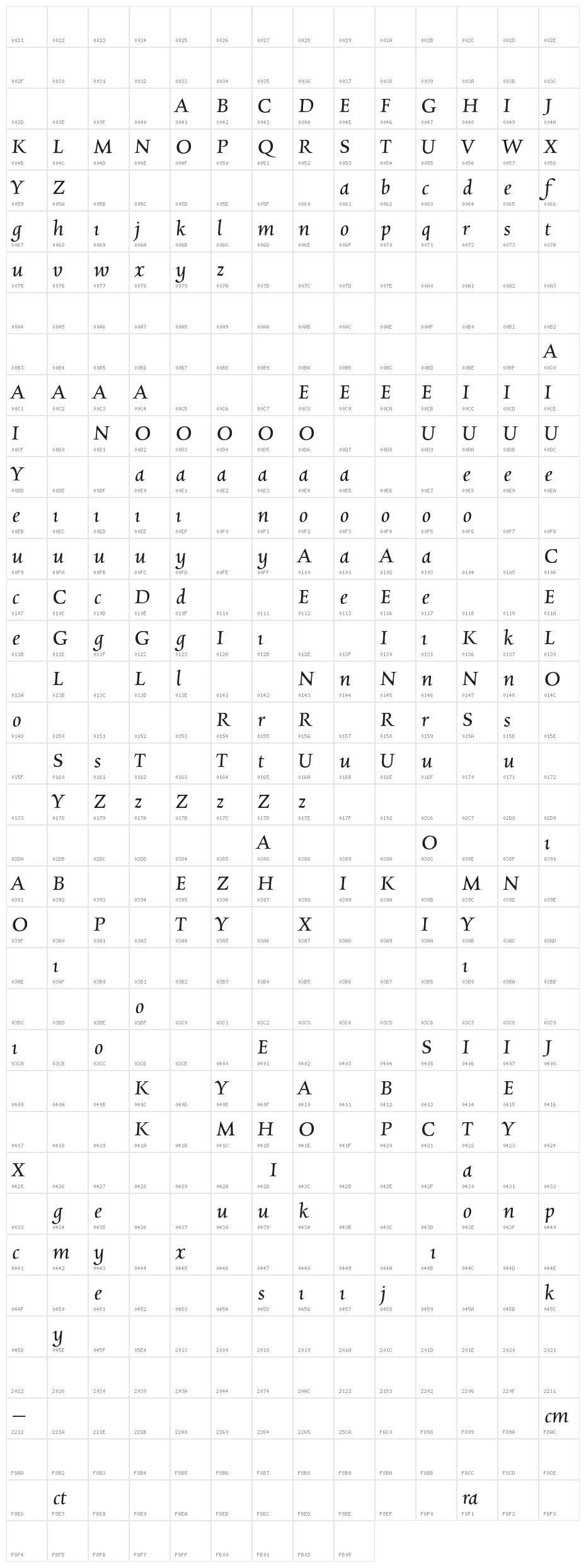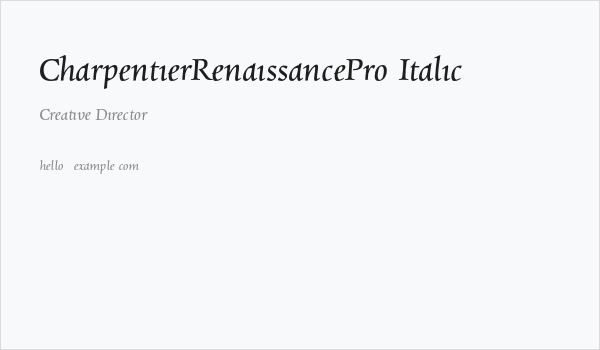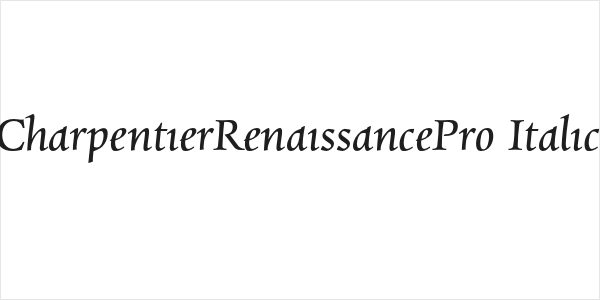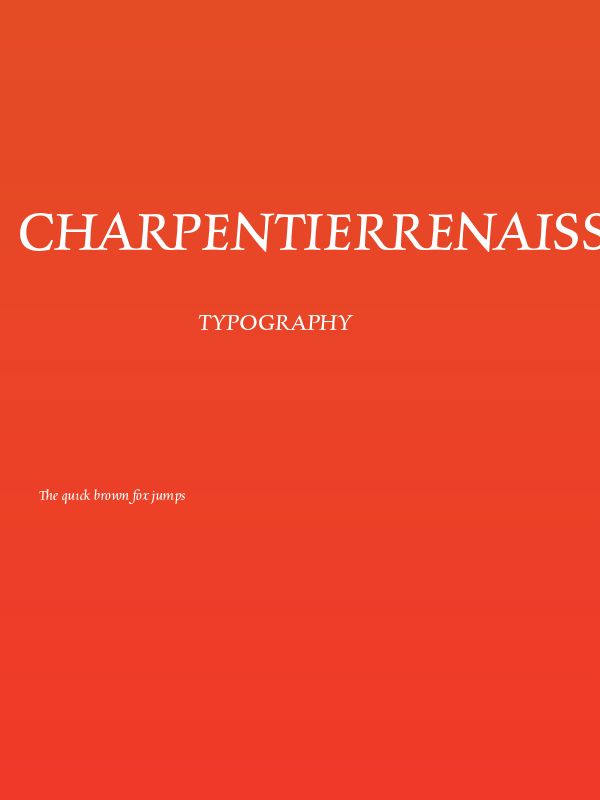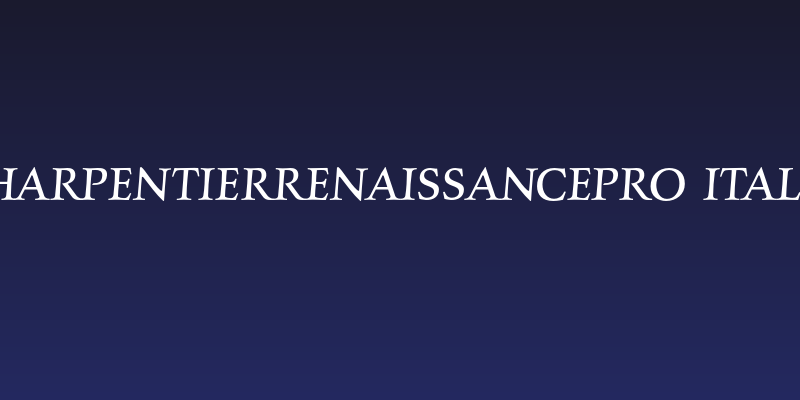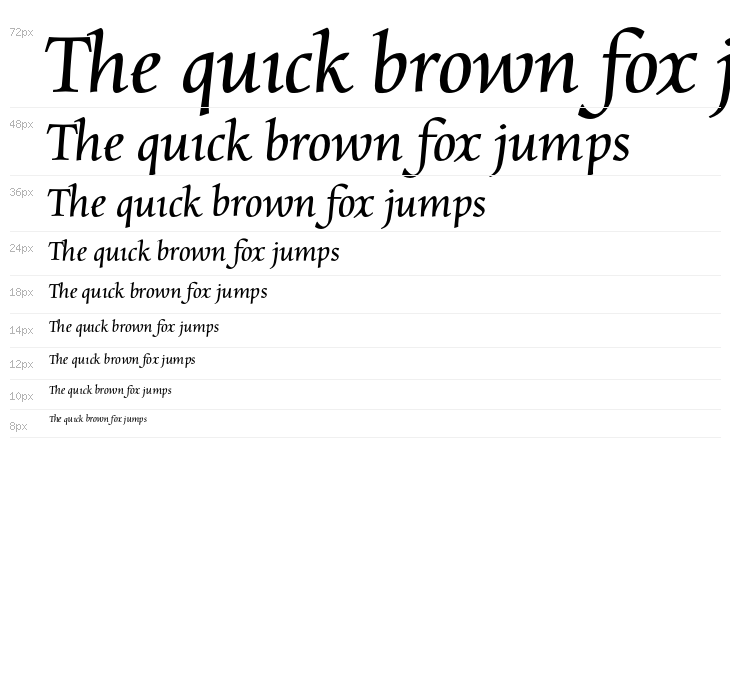
CharpentierRenaissancePro-Italic Font
CharpentierRenaissancePro-Italic Description
This font exhibits a classic and elegant style, characterized by its italicized form and refined serifs. The letters have a graceful flow, with a slight slant that adds a sense of movement and sophistication. The uppercase letters are well-proportioned, with distinct serifs that enhance their traditional appearance. The lowercase letters maintain a consistent style, with smooth curves and a harmonious balance between thick and thin strokes. This font's overall design is reminiscent of Renaissance calligraphy, offering a timeless and artistic appeal. It is suitable for projects that require a touch of elegance and historical charm.
| Proposed Projects | Ideal for wedding invitations, historical documents, book covers, and classical music programs. |